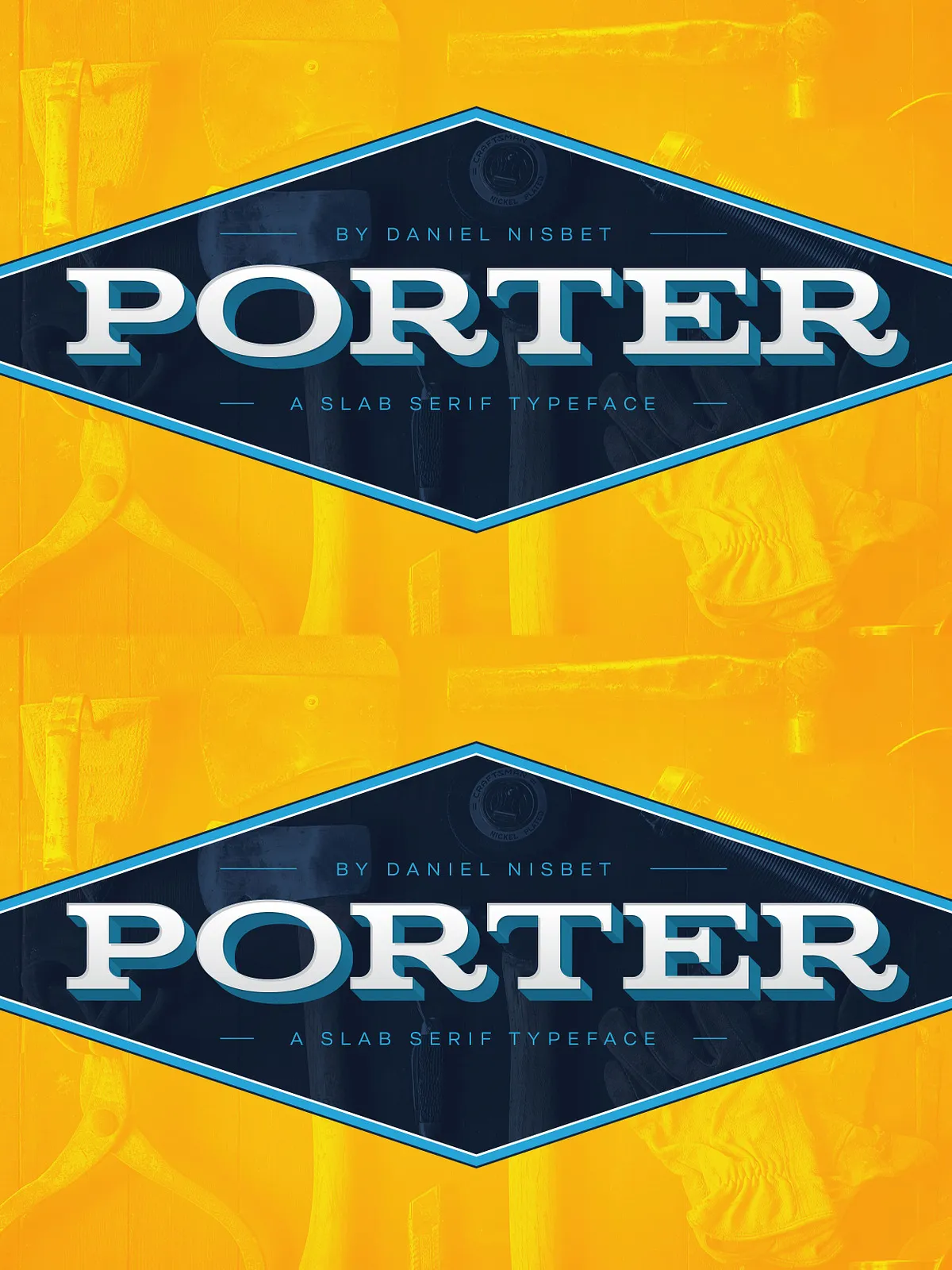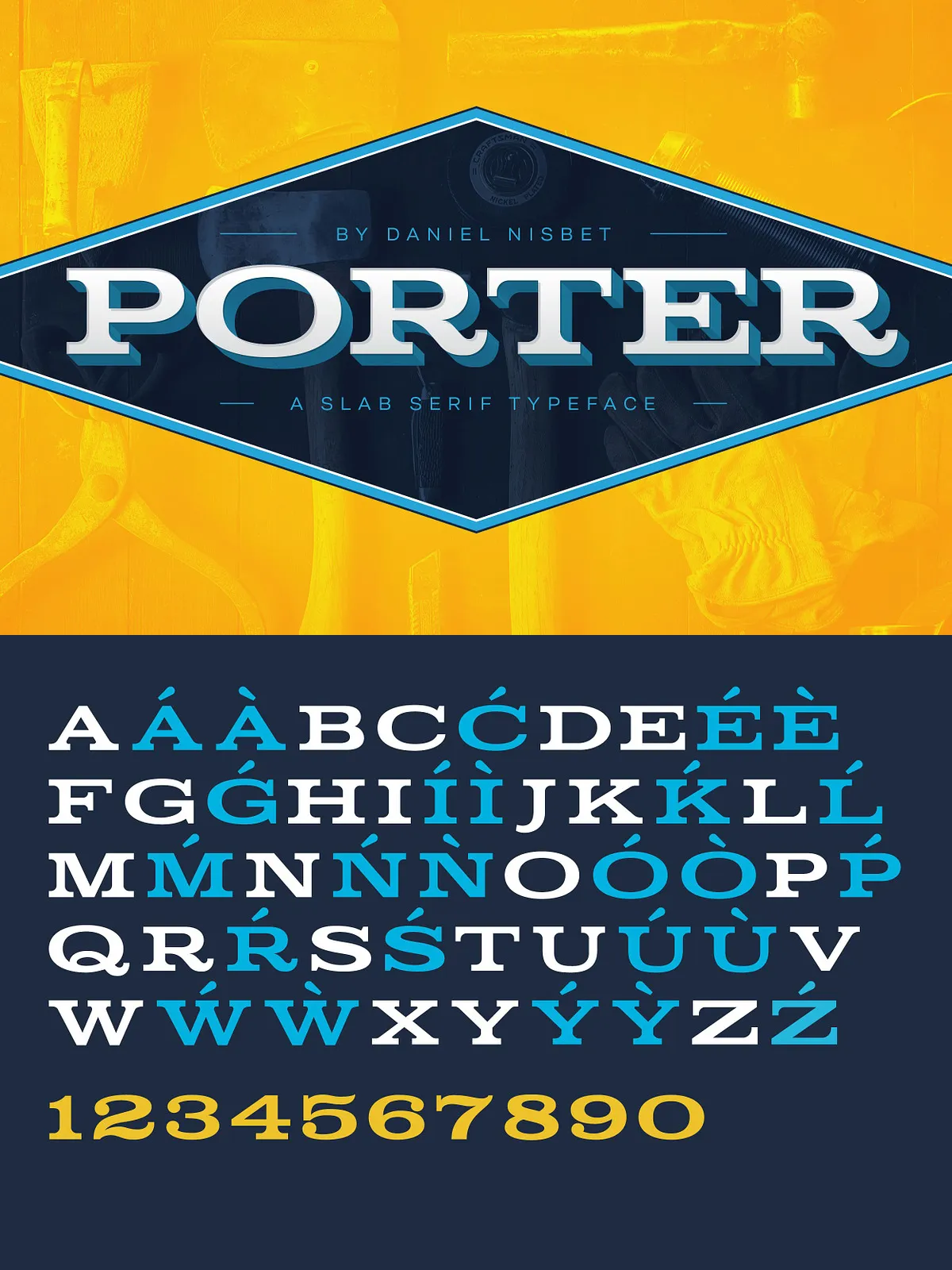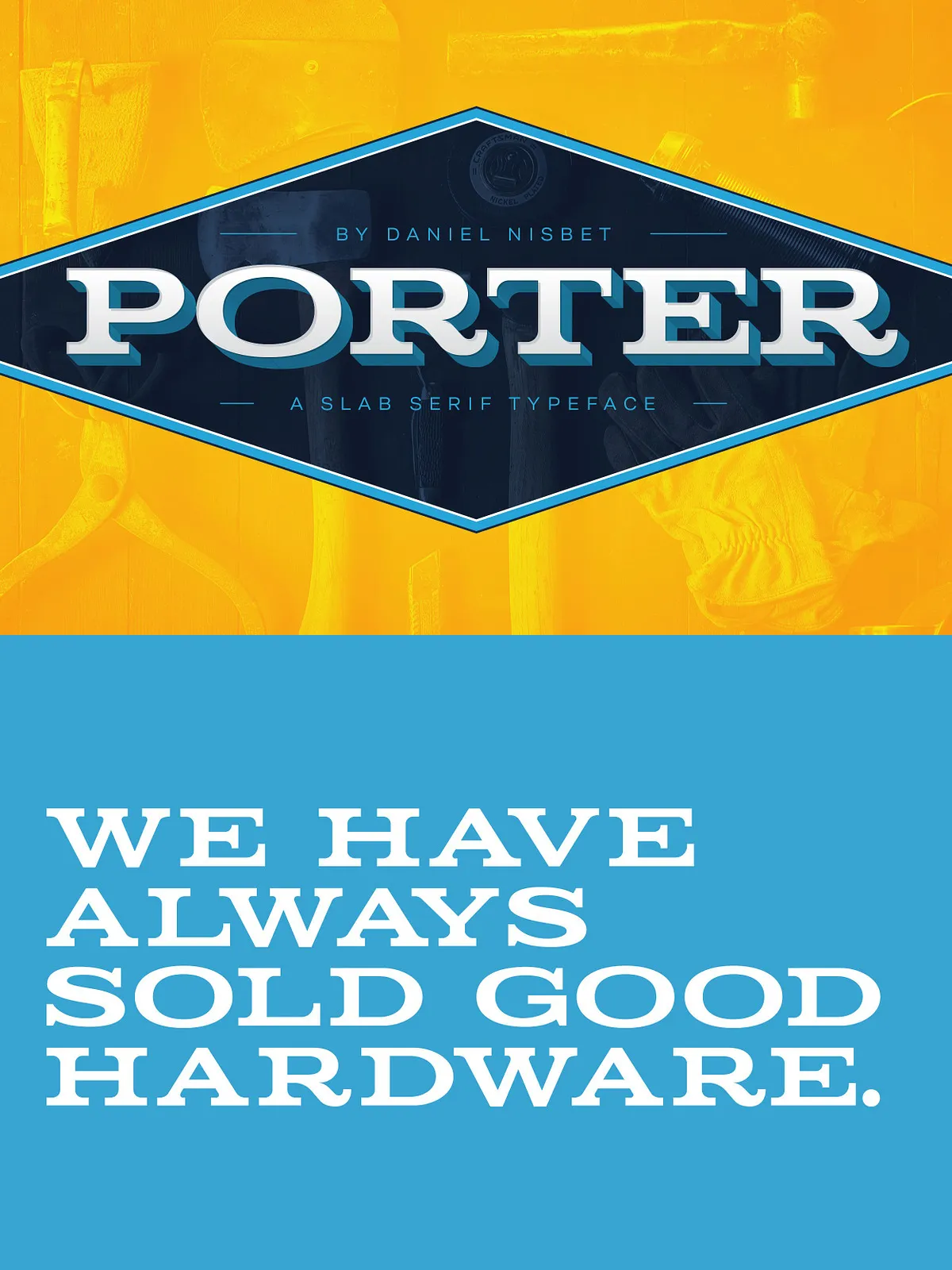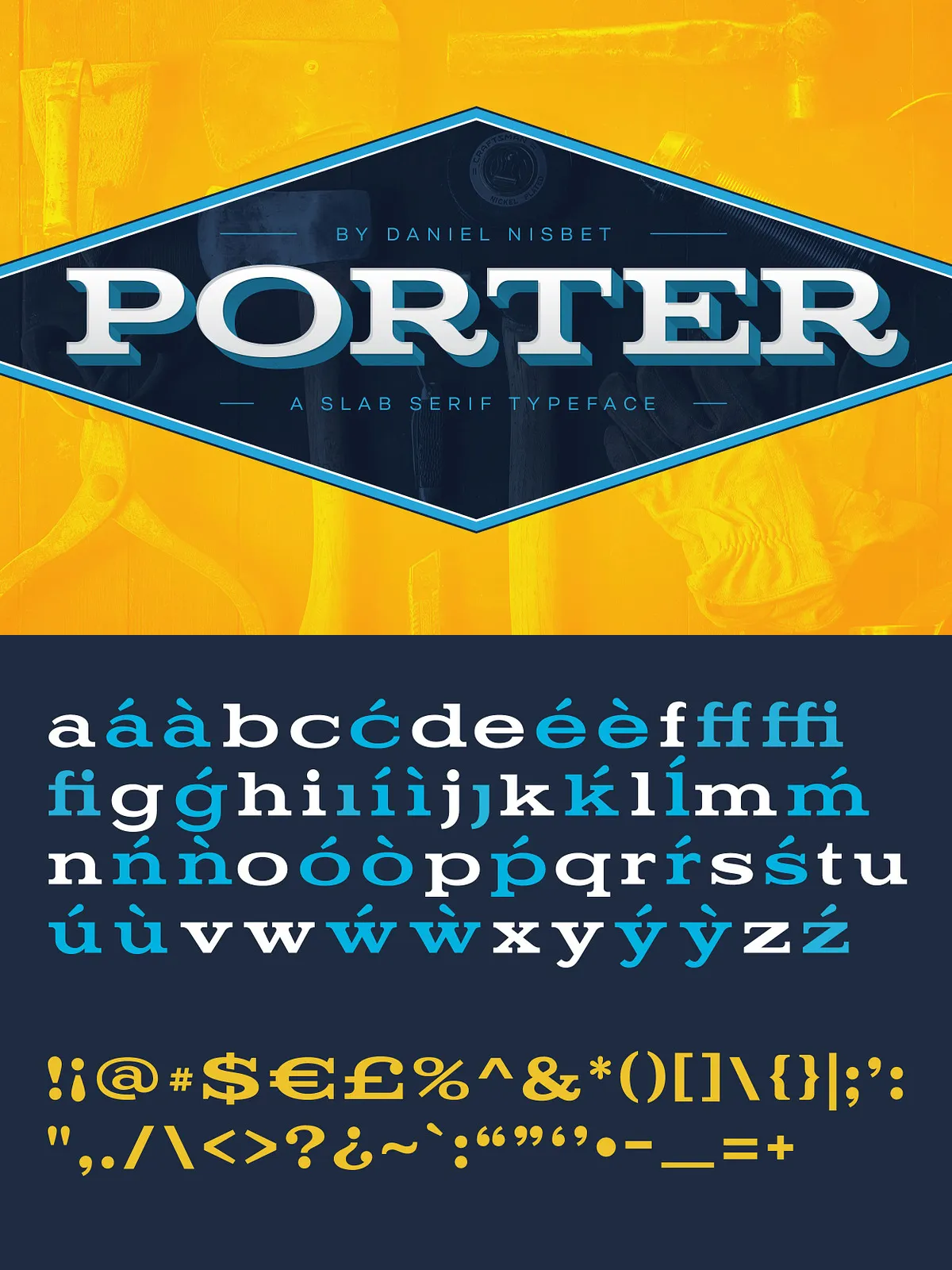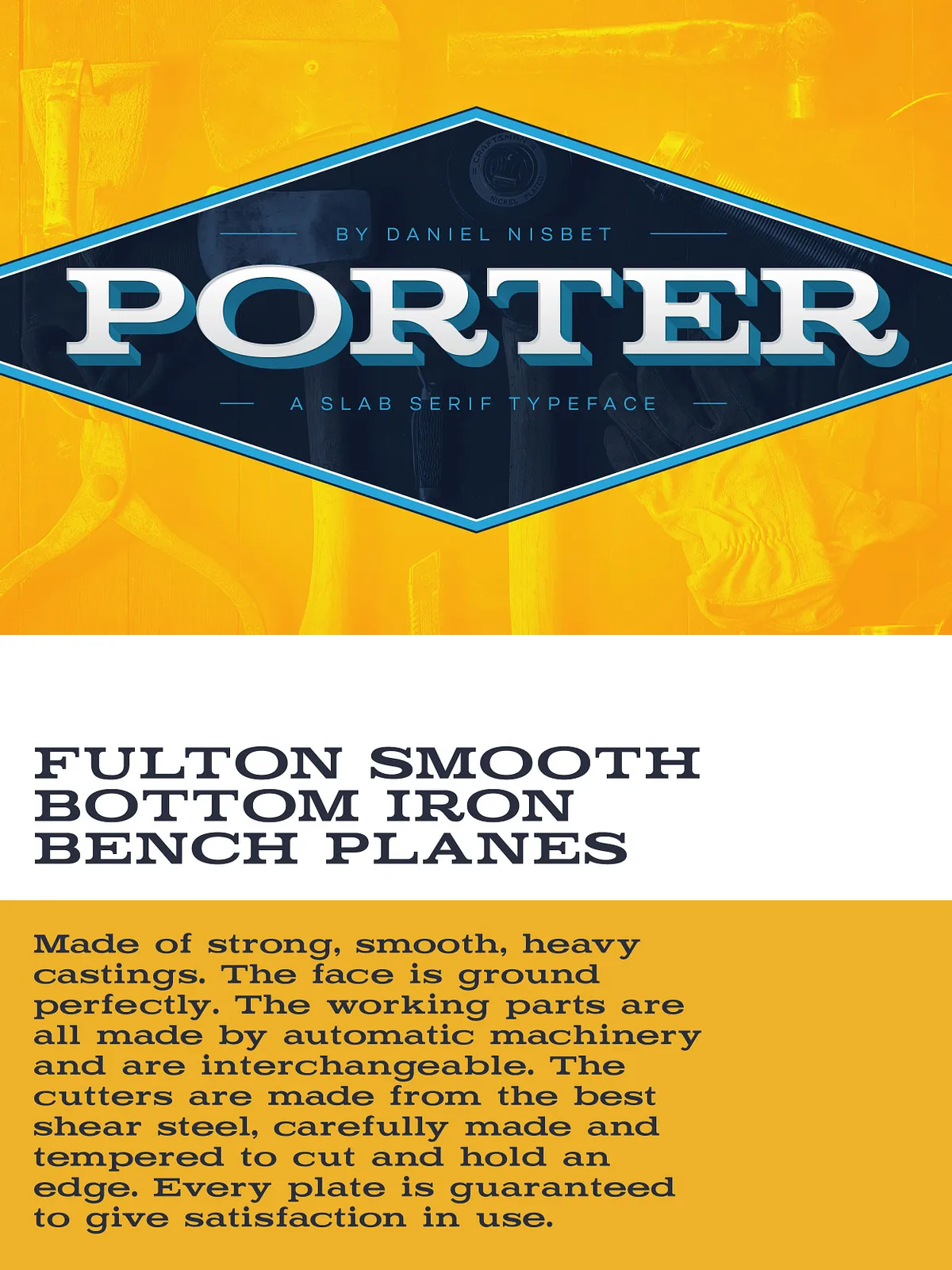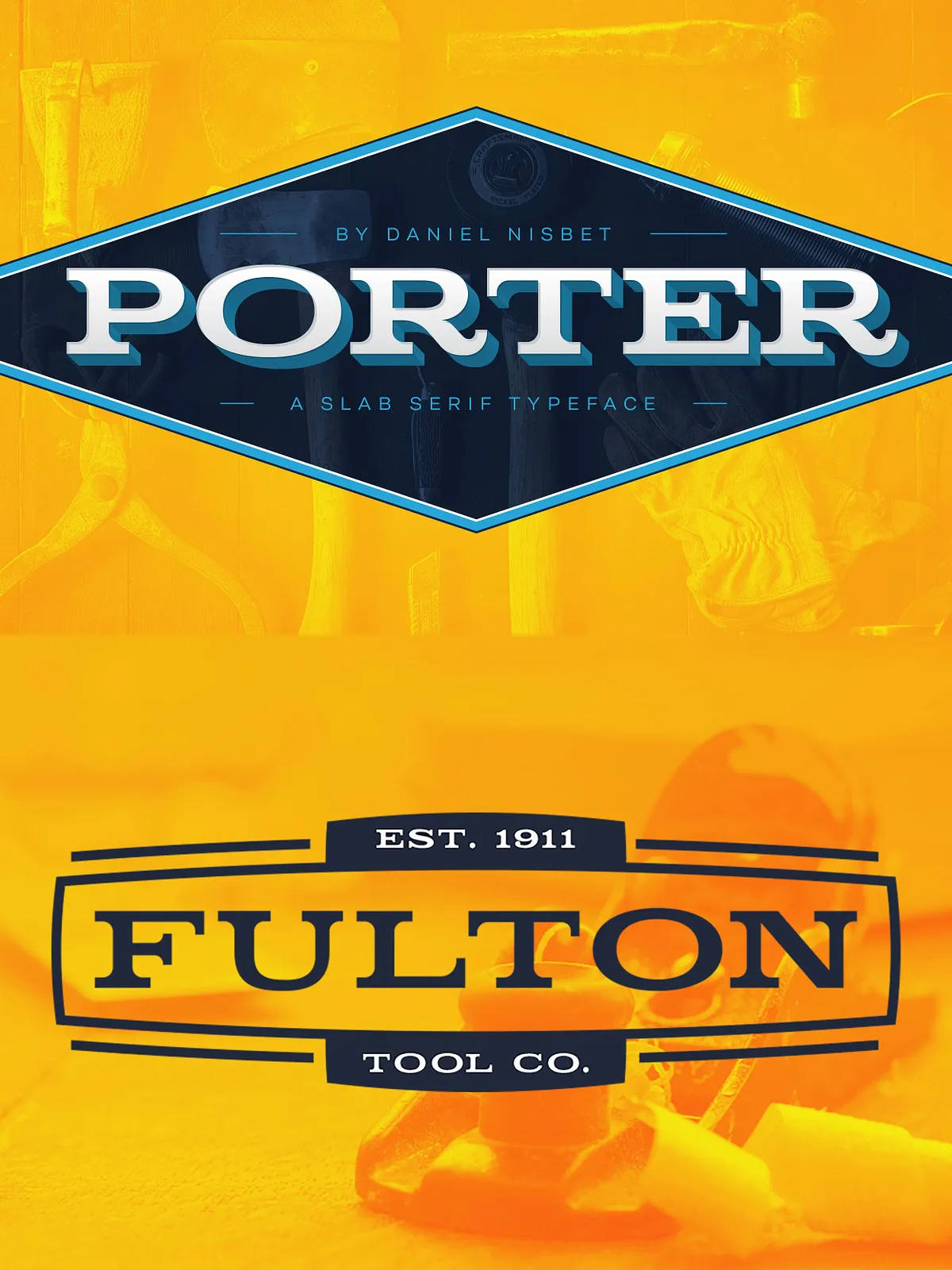
Perfect for headlines or logos, Porter finds its inspiration in the style of mid-19th century typefaces using generous slab serifs and a hard-working appearance.